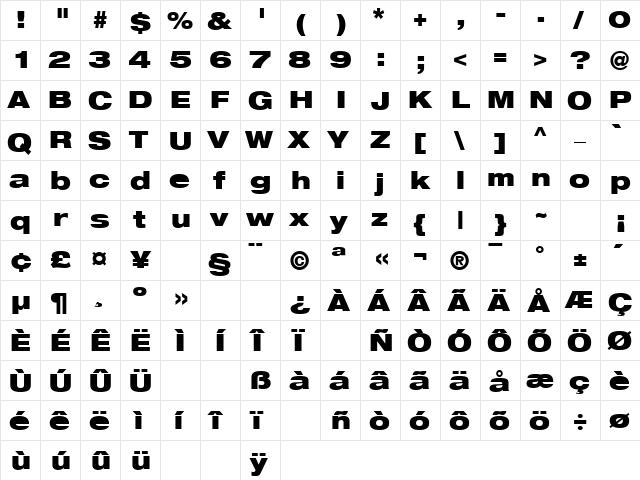
HeaveneticaExtd9 BlkSH Font Preview
HeaveneticaExtd9 BlkSH
Design Context for HeaveneticaExtd9 Typeface
HeaveneticaExtd9 offers clean, dependable letterforms without strong stylistic allegiance, making it a practical choice for designers who need flexibility.